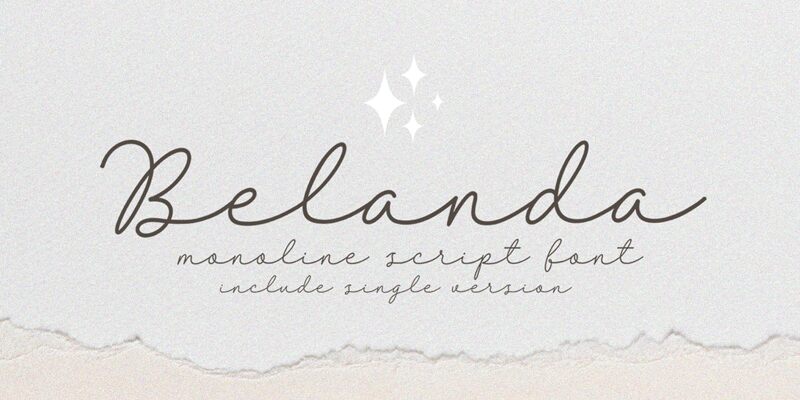
Belanda, a charming creation by Subectype & Orenari, is a delightful handwritten font with a monoline style. Its light weight and semi-expanded width give it an airy and elegant appearance, perfect for projects that require a touch of whimsy.
Whether used for wedding invitations, greeting cards, or logo designs, Belanda will effortlessly add a lovely and personal feel to any project. Let your creativity flow as you bring your ideas to life with this enchanting typeface.